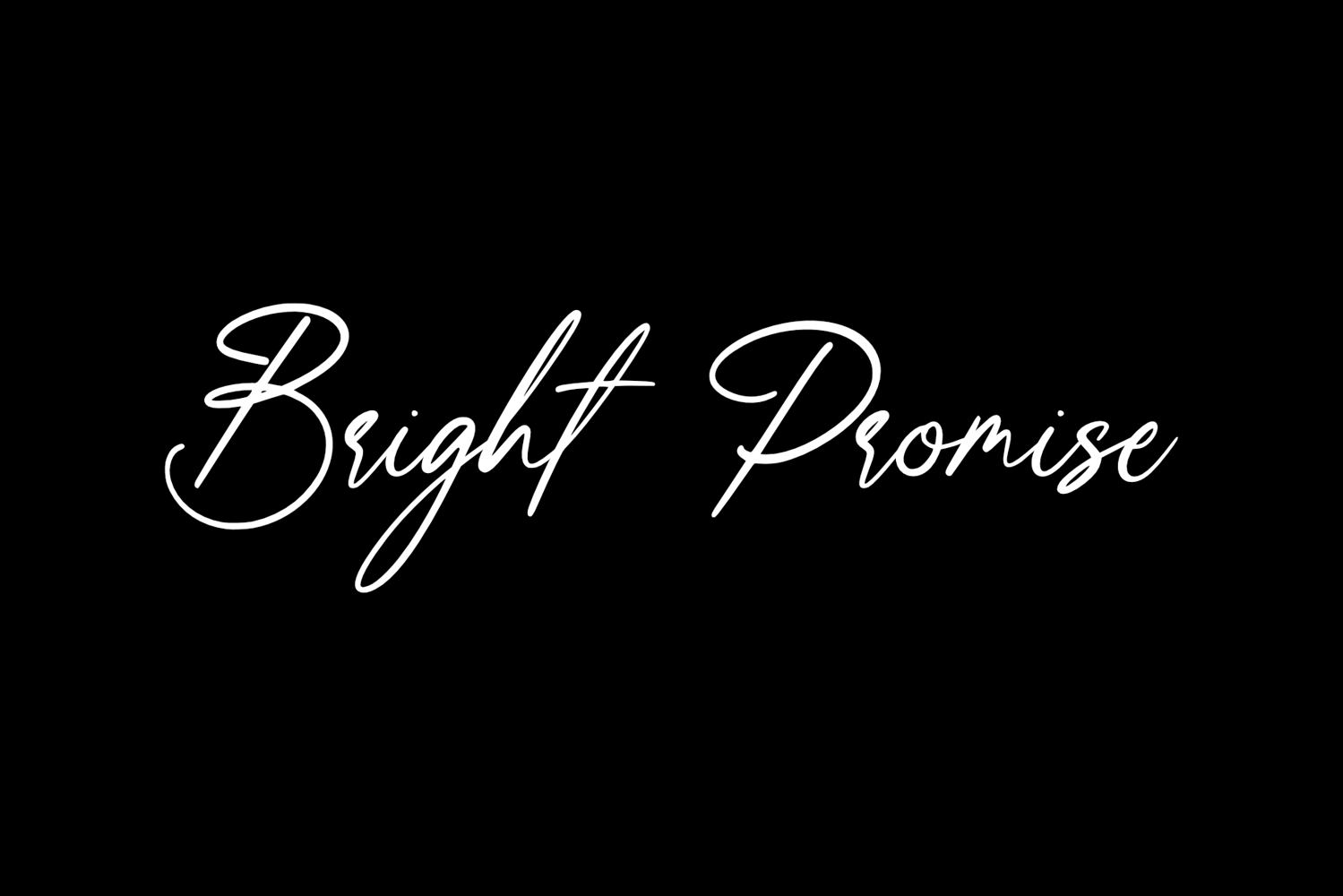
Created By Coretanletter
Bright Promise
Bright Promise Font is a premium script font that exudes elegance and sophistication. With its flowing lines and delicate curves, this font is perfect for adding a touch of charm to invitations, logos, and branding materials. Its unique design sets it apart from traditional script fonts, making it ideal for projects that require a modern and stylish aesthetic.
Bright Promise
By Coretanletter